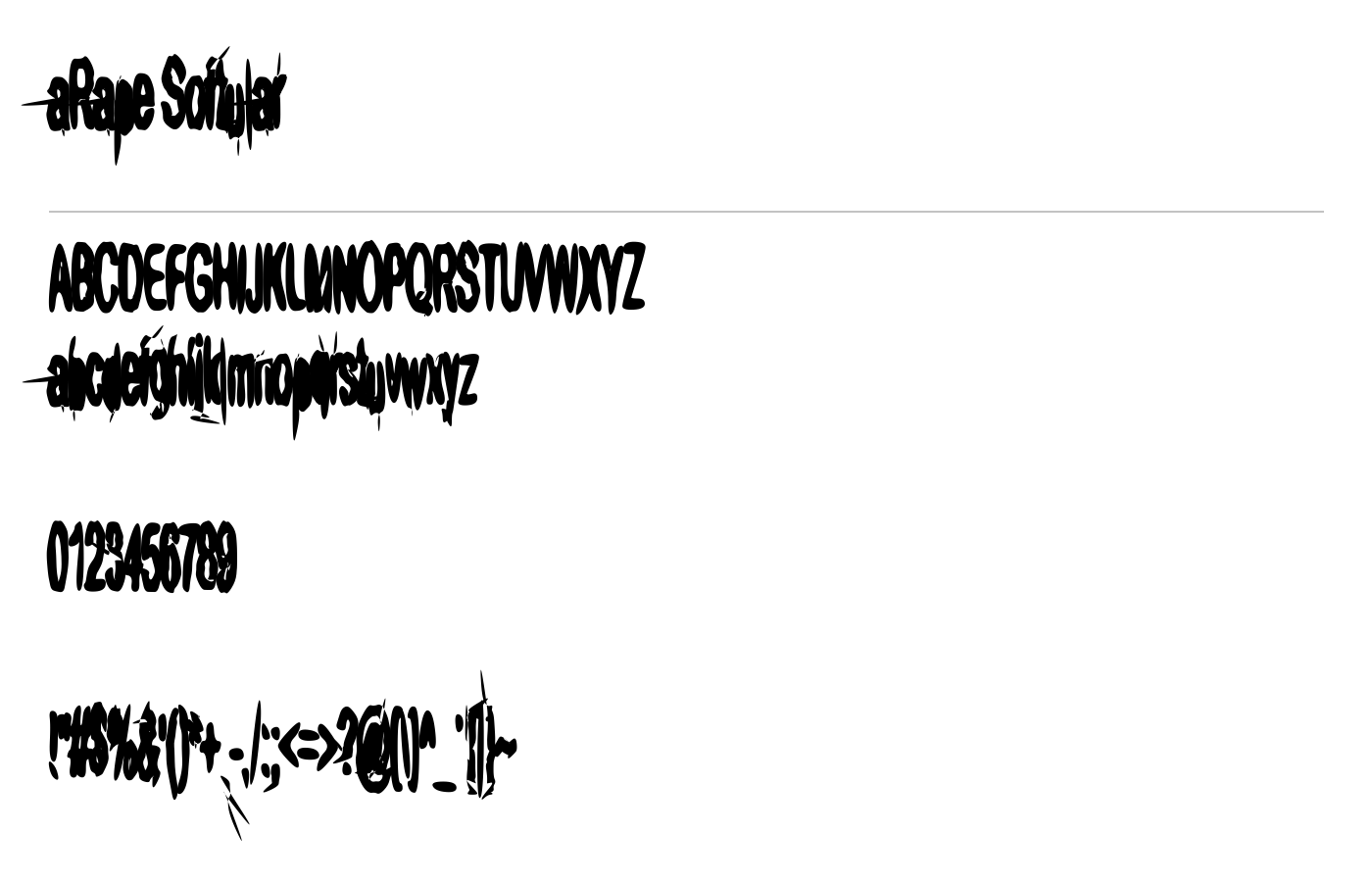
aRape Softular is a bold, condensed display font with a distressed, rough texture that gives it a dynamic and edgy feel. Its unconventional shapes and sharp, irregular strokes make it ideal for striking headlines or artistic projects that want to convey intensity and originality. This font works best for creative branding, posters, or designs seeking a gritty, rebellious vibe.
aRape Softular Font
About aRape Softular Font